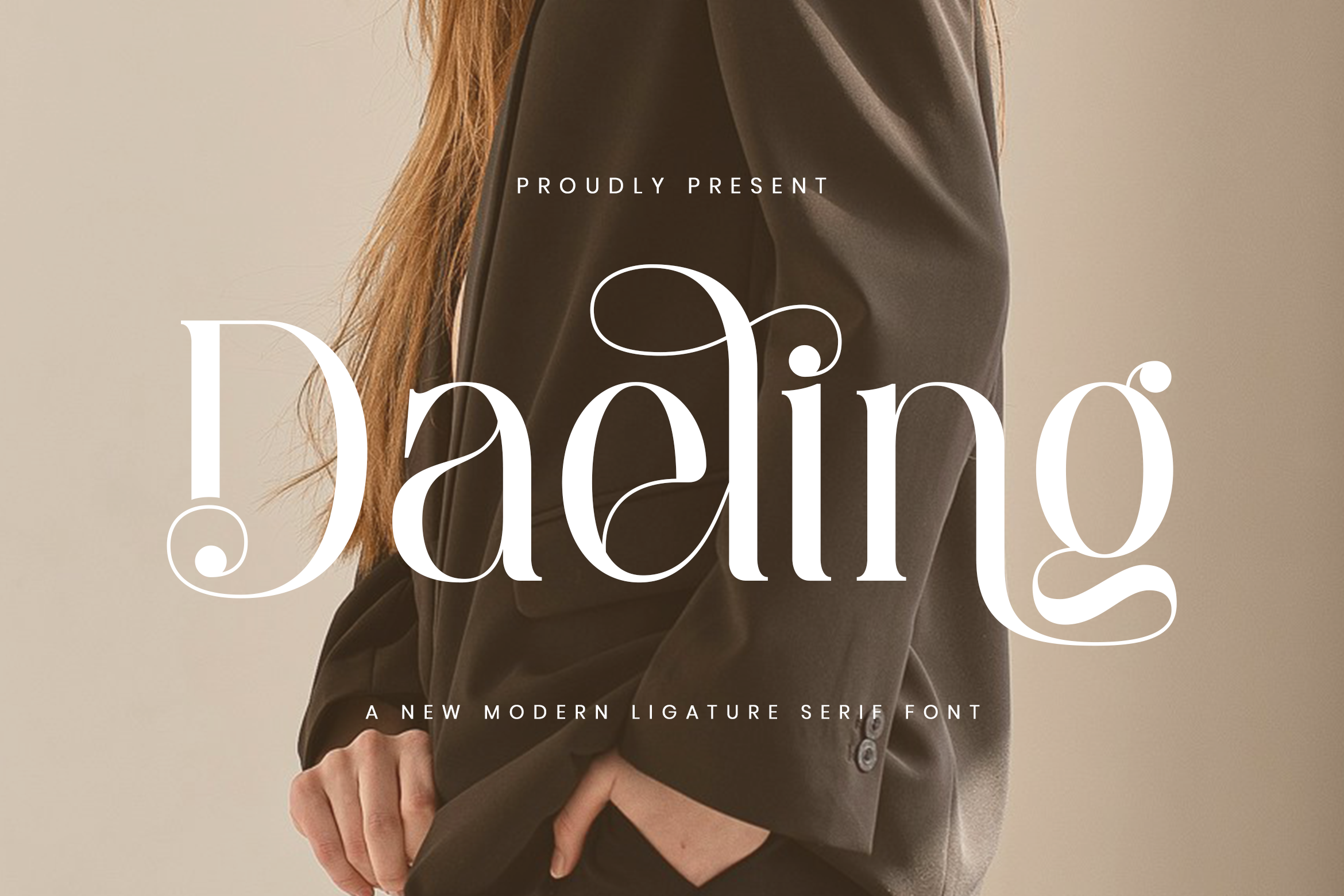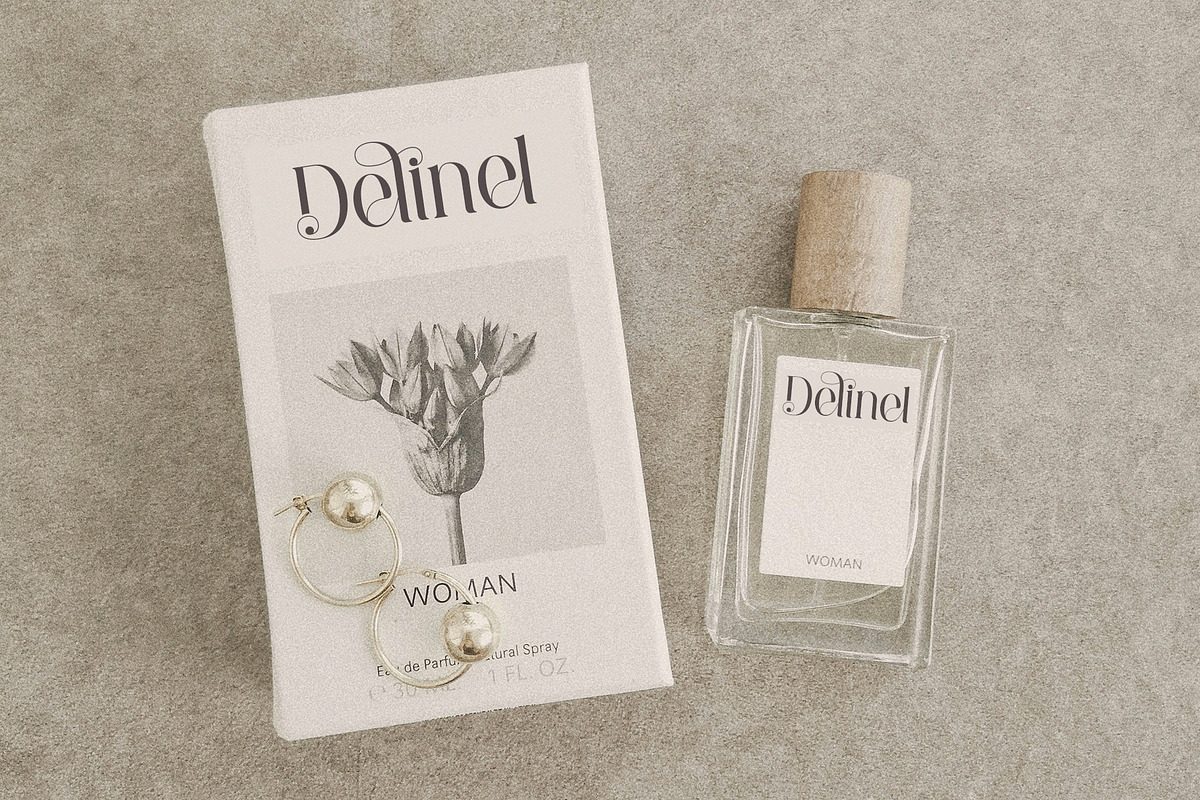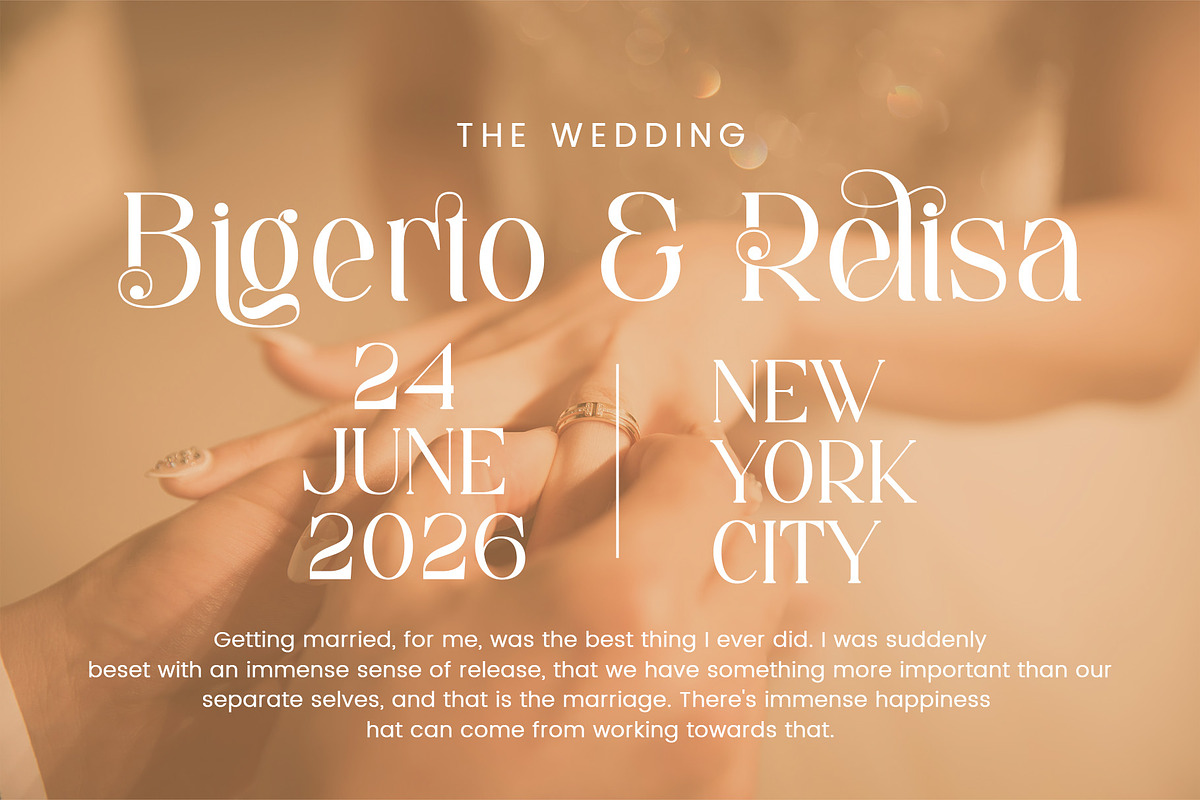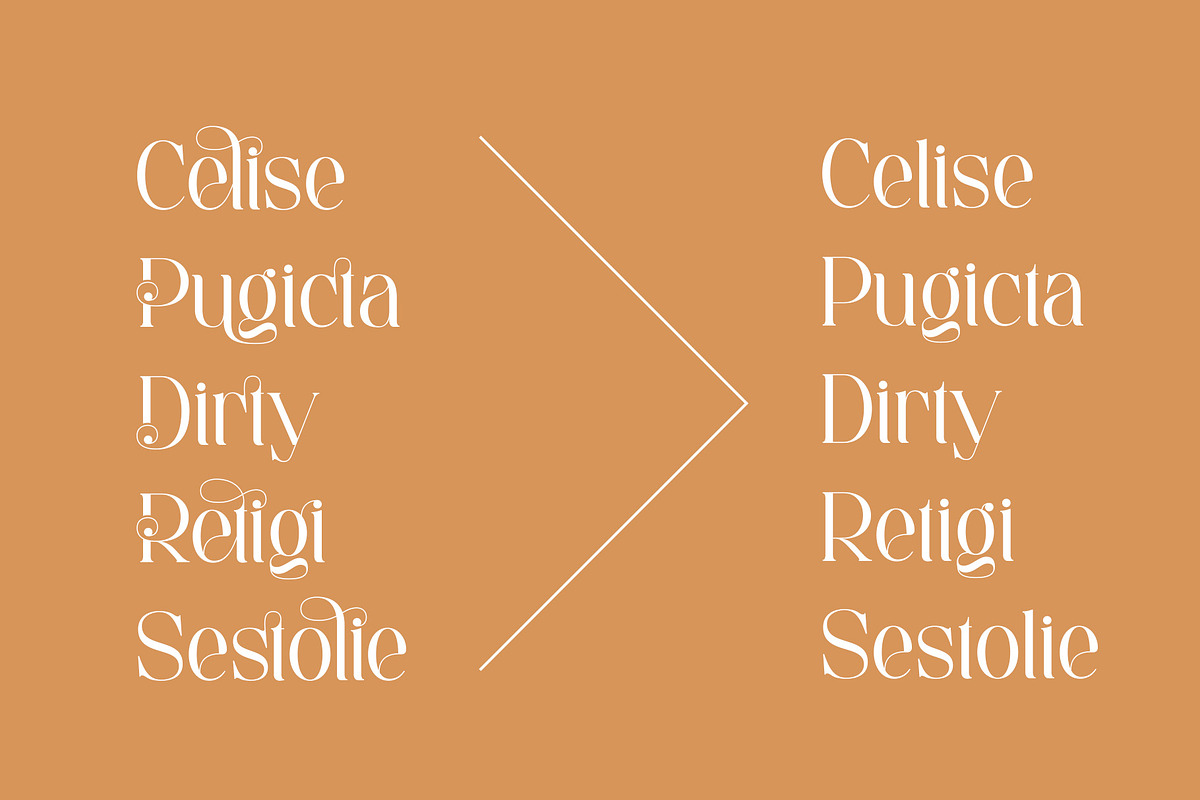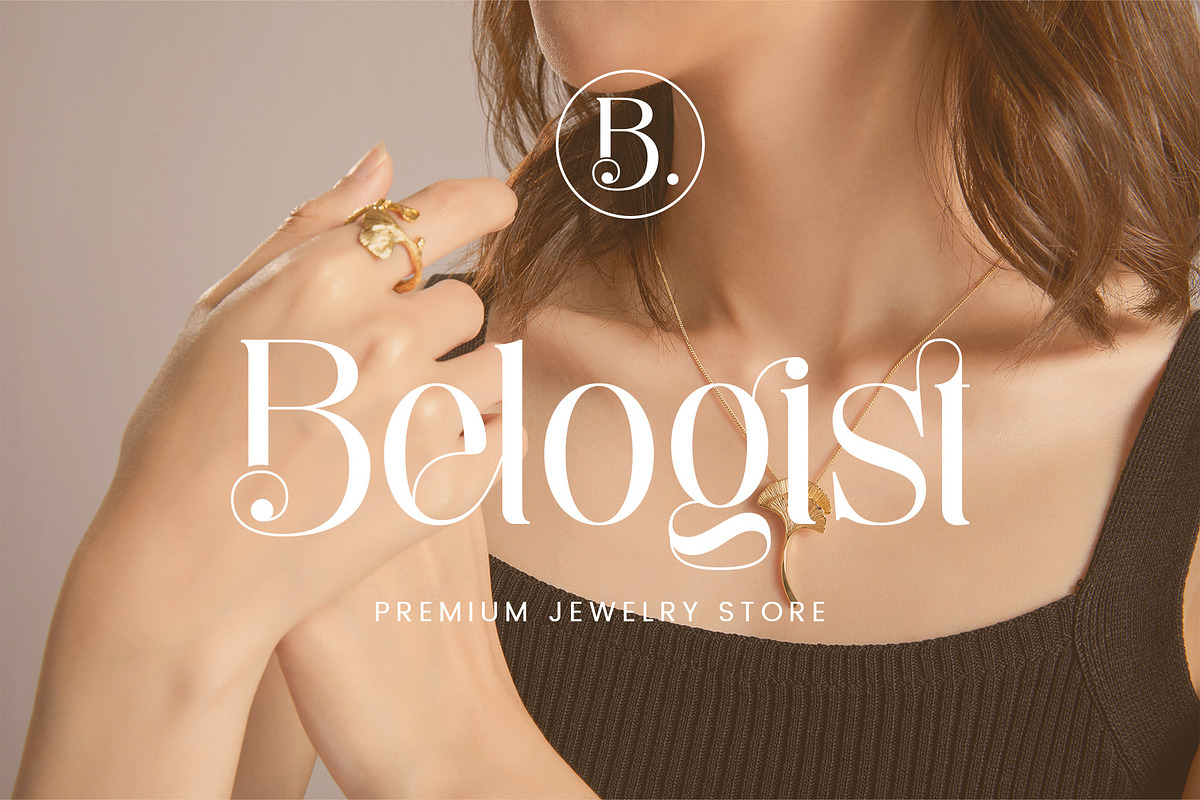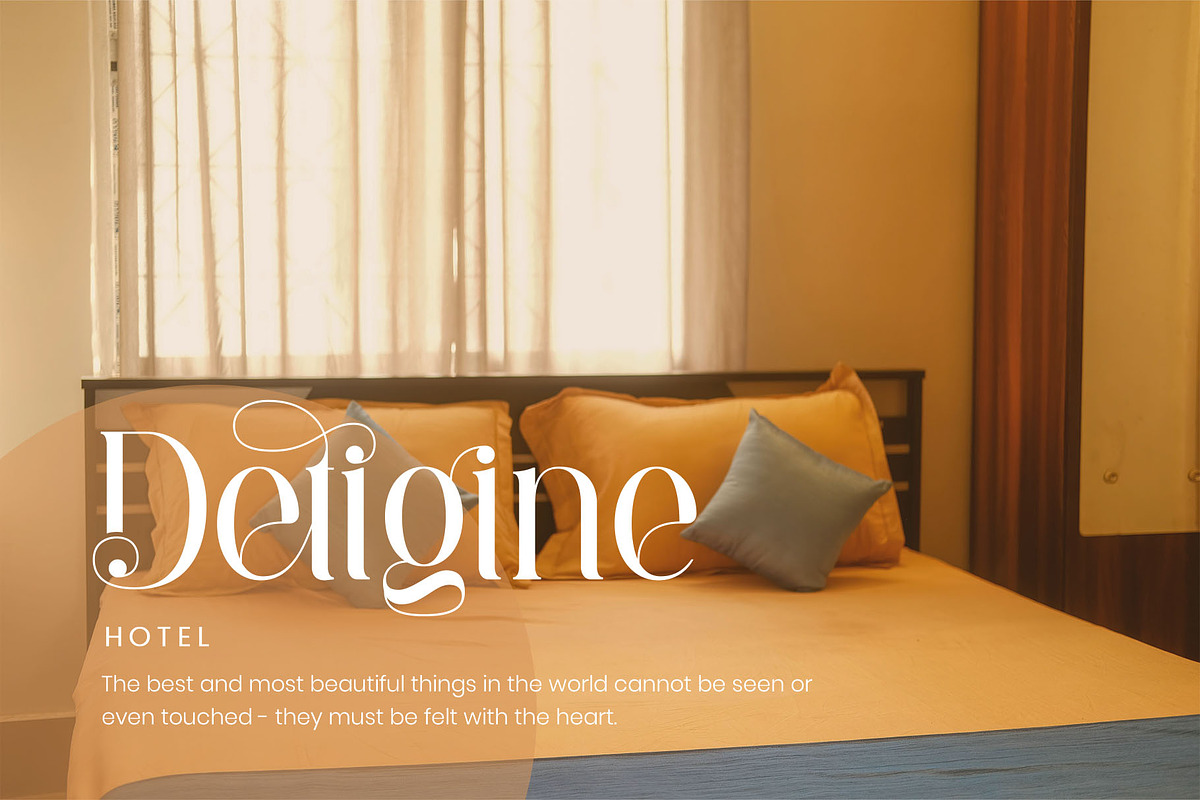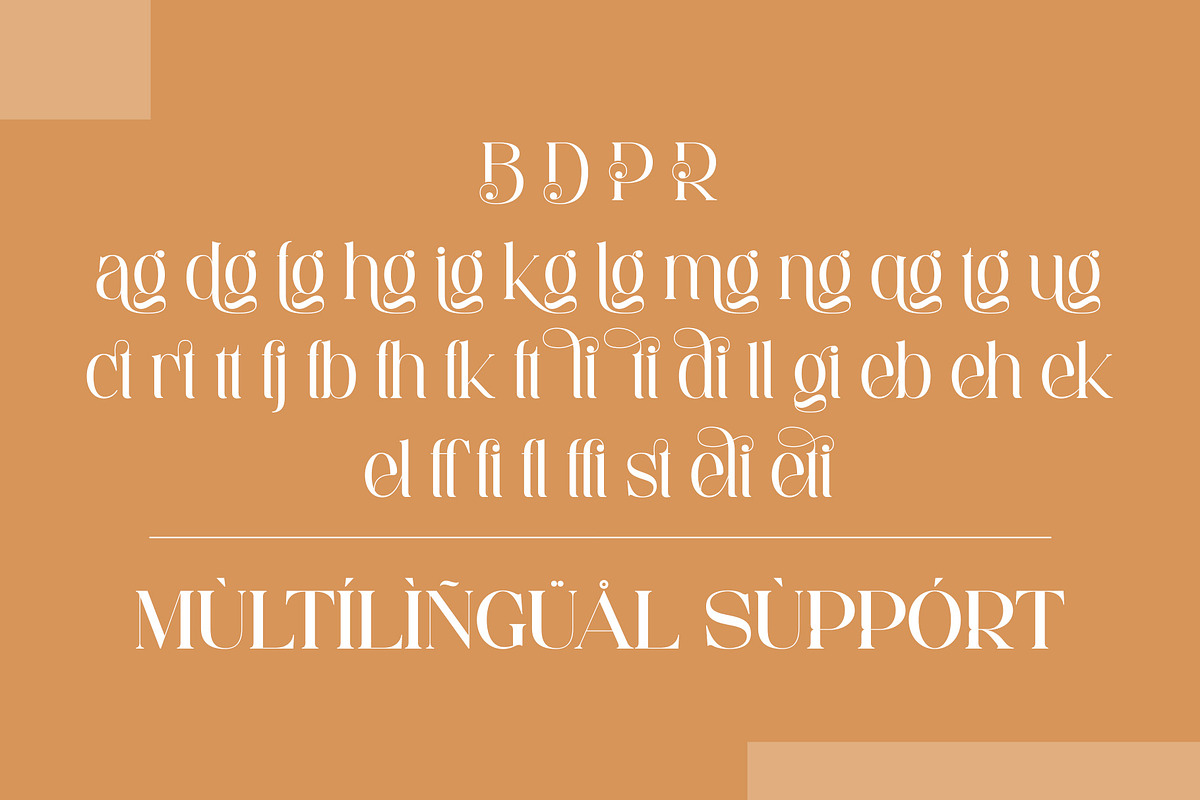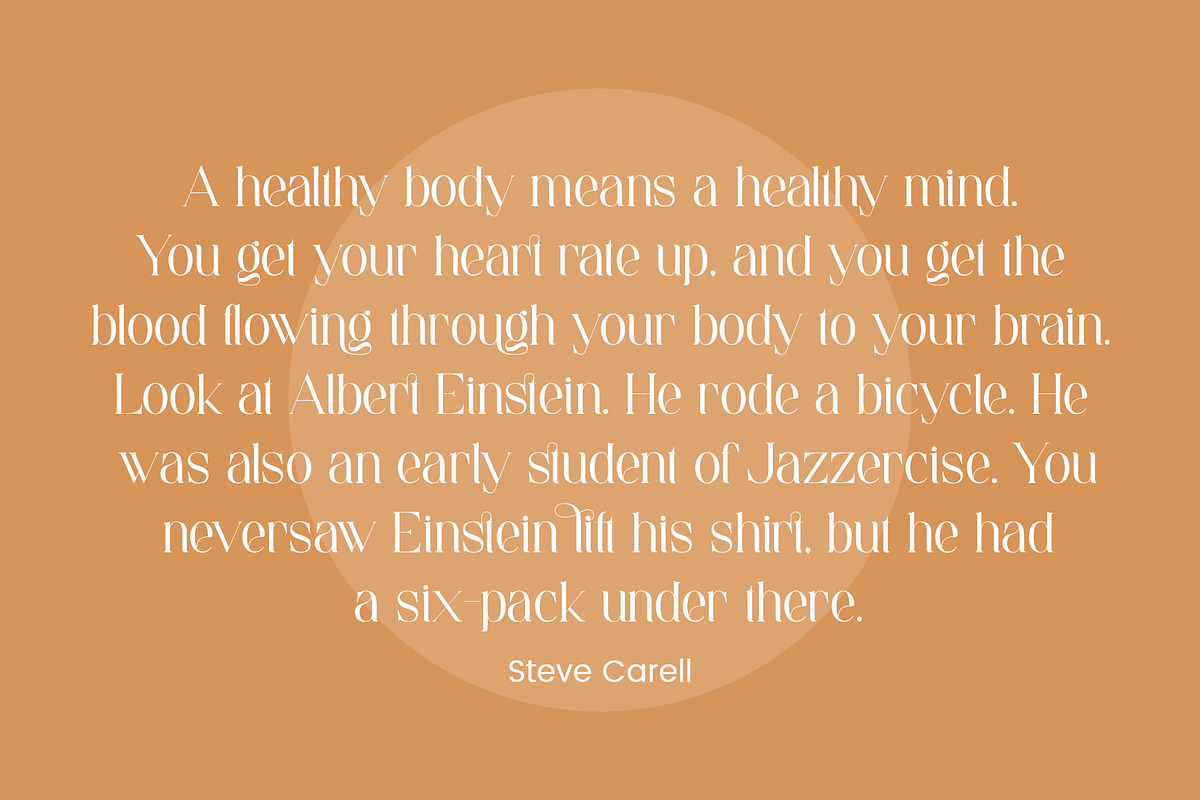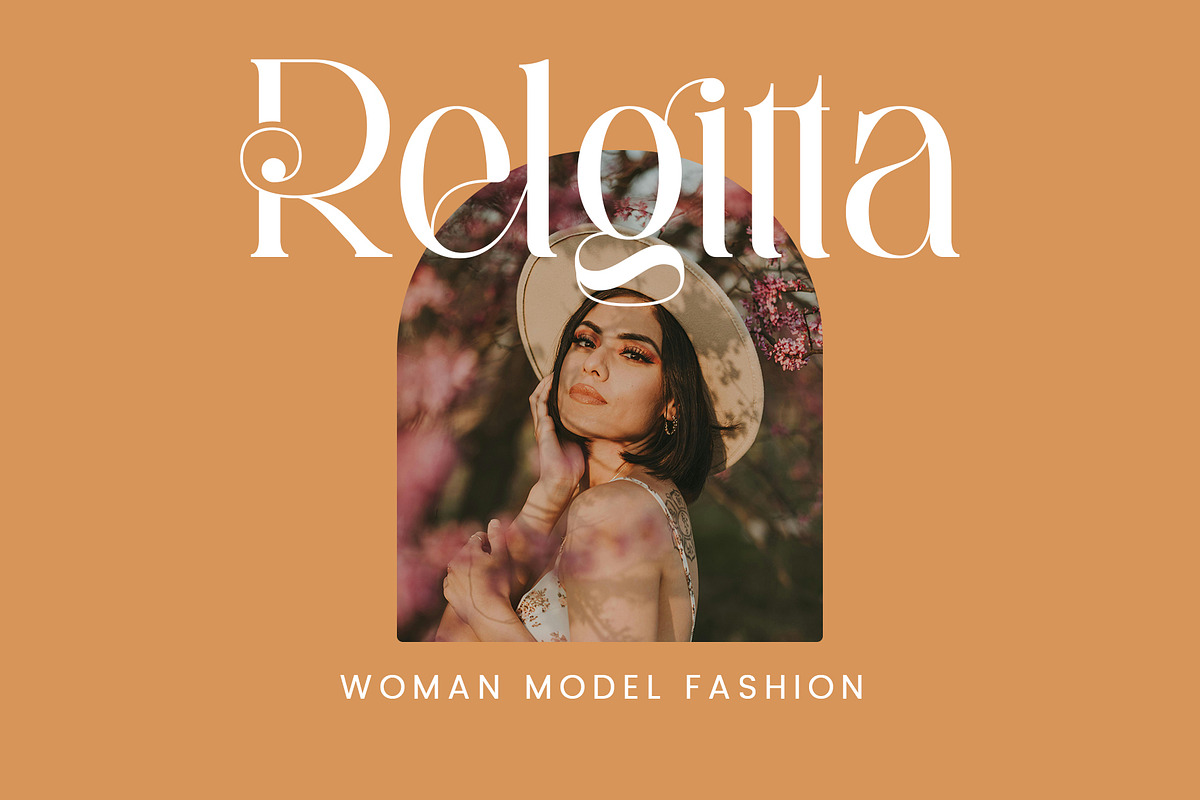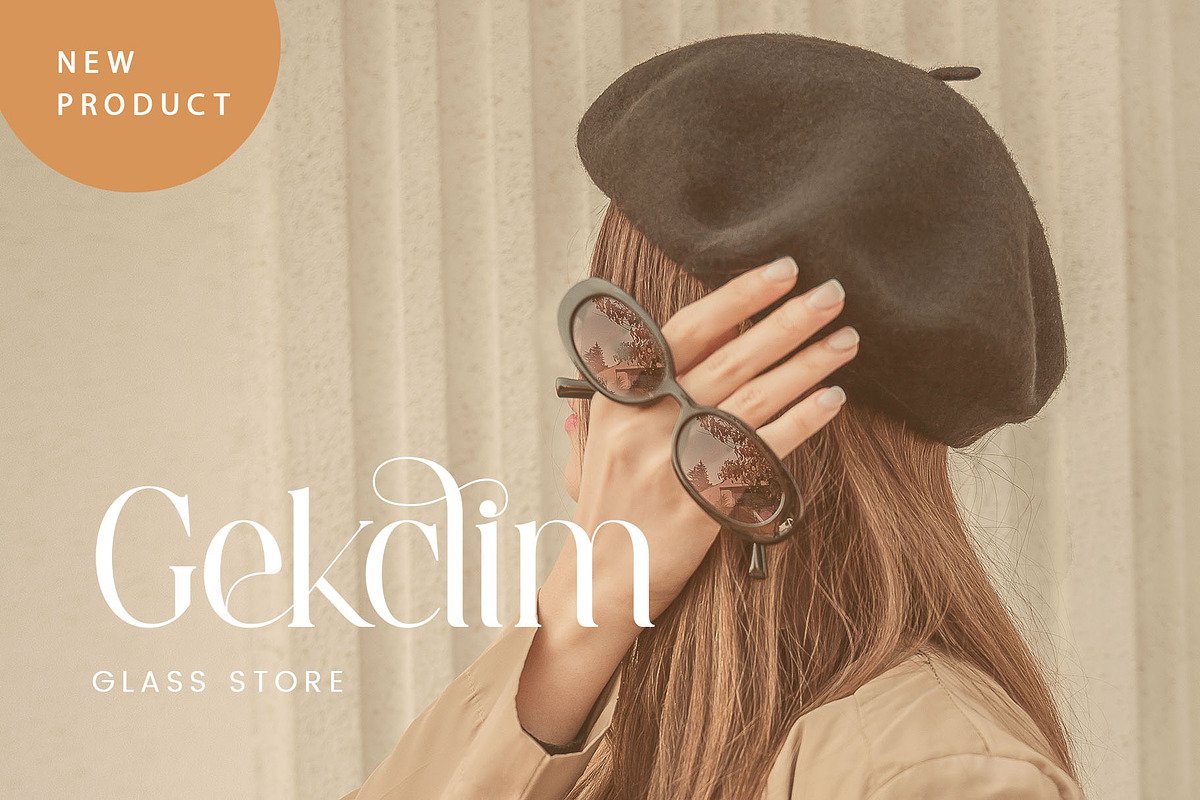
Daeling - Modern Serif Font
Daeling Stylish Ligature Typeface, inspired by the famous minimalist logo perfect for the purposes of designing templates, brochures, videos, advertising branding, logos and more.